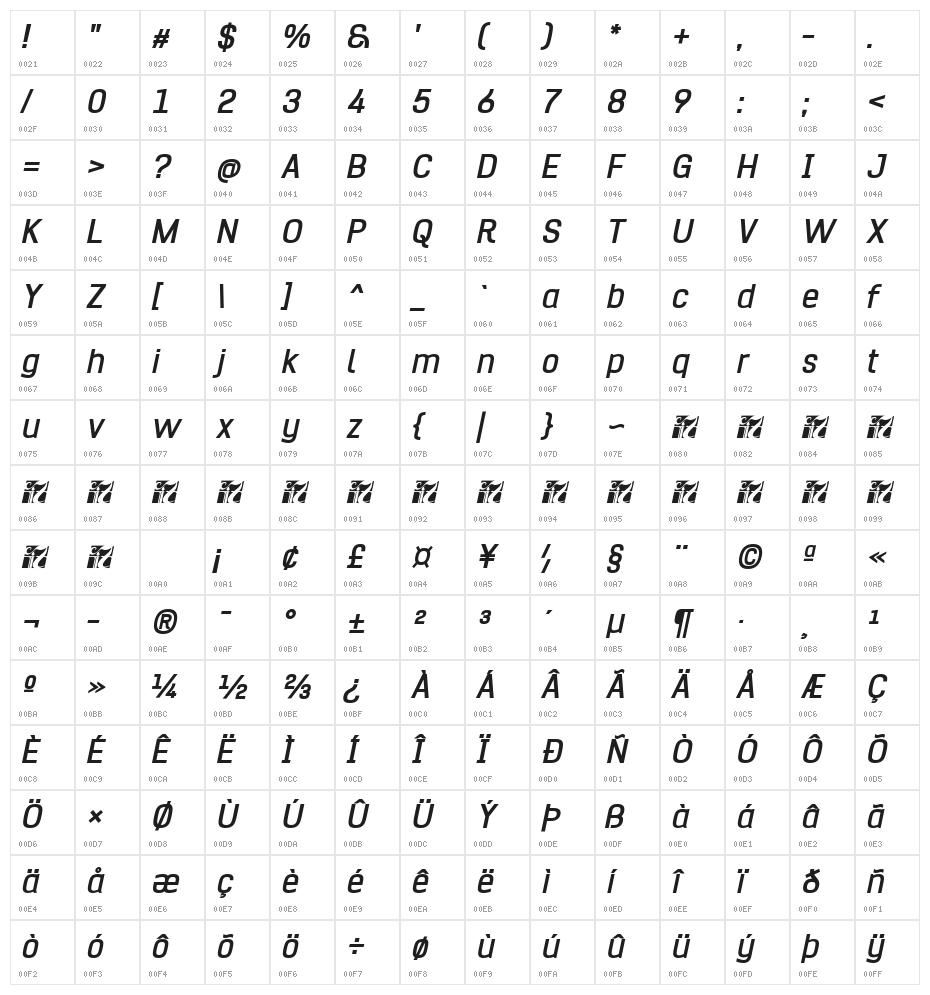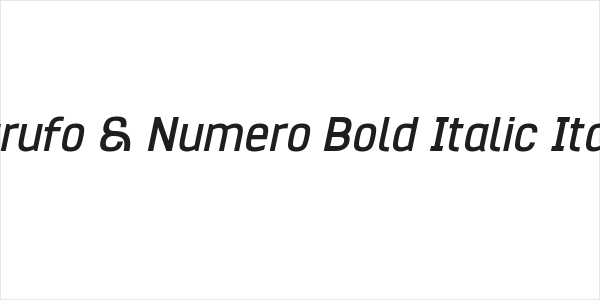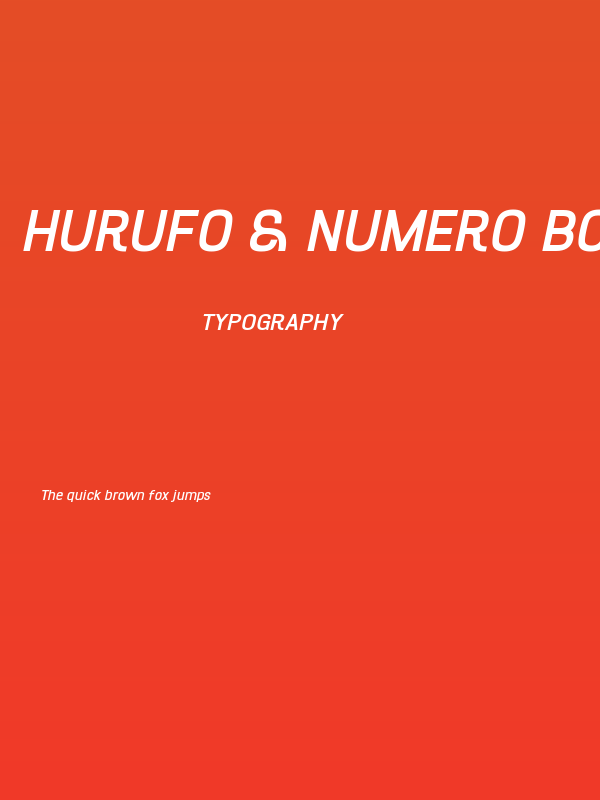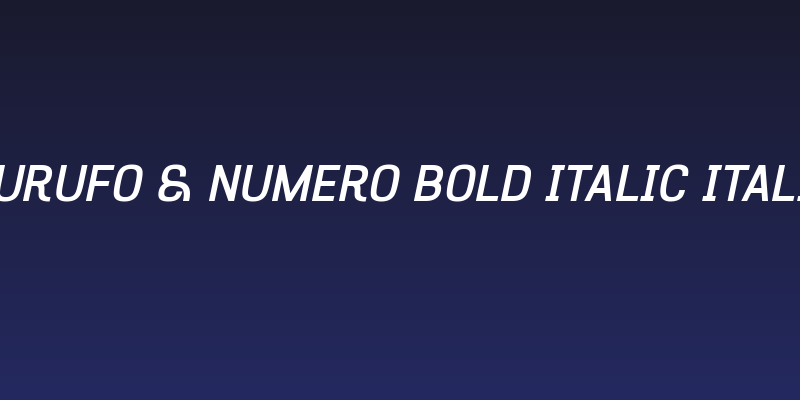
This font showcases a bold and italicized style, characterized by its strong and dynamic slant. The letters are well-defined with a consistent stroke width, giving it a robust and modern appearance. The uppercase and lowercase letters maintain a uniform height, contributing to a cohesive look. The numerals are clear and legible, making them suitable for various applications. Special characters are included, enhancing the font's versatility. The overall design is sleek and contemporary, making it ideal for projects that require a bold statement.
Use CaseHeadlines, Logos, Advertising
Proposed ProjectsIdeal for branding, advertising, headlines, and digital media where a strong, modern impression is needed.